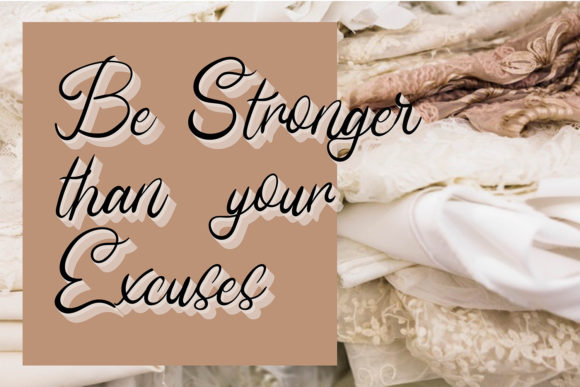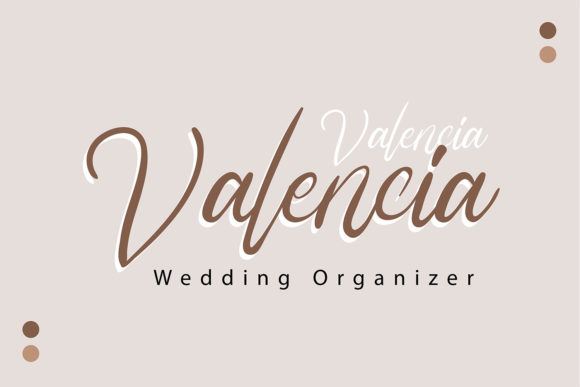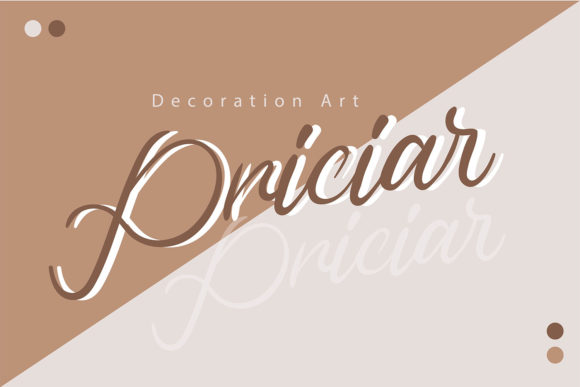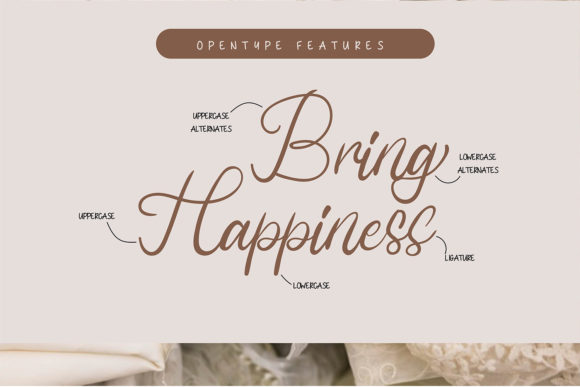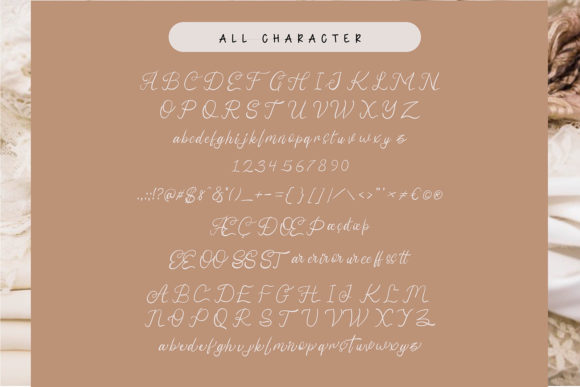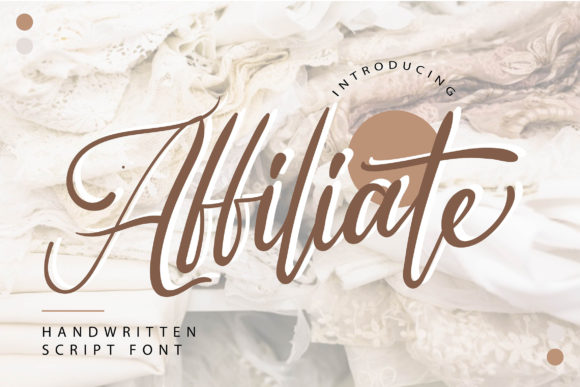
The Perfect Font for Personalized Designs: Affiliate Font
Have you ever been working on a design project, and suddenly, you’re stuck on finding the perfect font? I recall a wedding invitation project where I needed a font that exuded elegance and sophistication. After hours of searching, I stumbled upon the Affiliate font, which became an instant favorite. In this article, I’ll share my experience with this beautiful handwritten font and provide a comprehensive guide on how to make the most of its features.
A Personal Favorite: What I Love About Affiliate Font
The Affiliate font is a unique and elegant handwritten font that looks stunning on various designs requiring a personalized style. Here are some things I love about it:
- ✨ Elegant and sophisticated look, perfect for wedding invitations, thank you cards, and greeting cards
- ✅ PUA encoded, making it easy to access amazing glyphs and ligatures
- 💫 Works beautifully on logos, branding materials, and other creative projects
- 👍 Highly versatile and adaptable to different design styles
Honest Review: The Not-Perfect-but-Almost Section
No font is perfect, and Affiliate is no exception. Here are a few quirks to keep in mind:
- ⚠️ Some users might find the font a bit too ornate or delicate for certain projects
- 🤔 Limited availability of certain characters or symbols, but this can be addressed with the PUA encoding
The Story Behind Affiliate Font
The Affiliate font was designed with the intention of creating a beautiful and elegant handwritten font that could be used for a variety of design projects. The designer aimed to create a font that was both refined and approachable, making it perfect for designs that require a personal touch.
| What is the Affiliate font best used for? | The Affiliate font is best used for designs that require a personalized and elegant touch, such as wedding invitations, thank you cards, and greeting cards. |
| Is Affiliate font PUA encoded? | Yes, Affiliate font is PUA encoded, making it easy to access amazing glyphs and ligatures. |